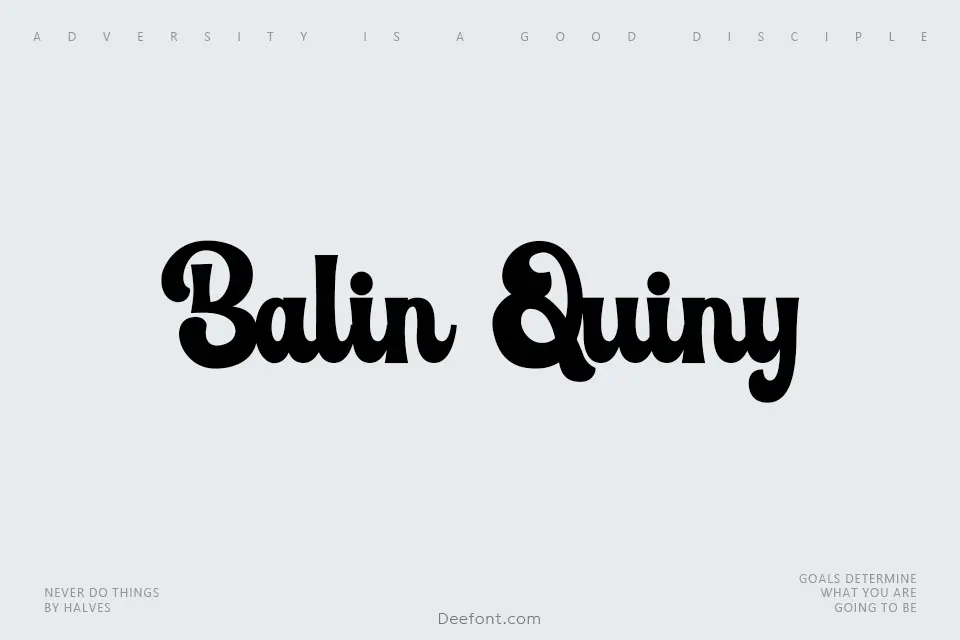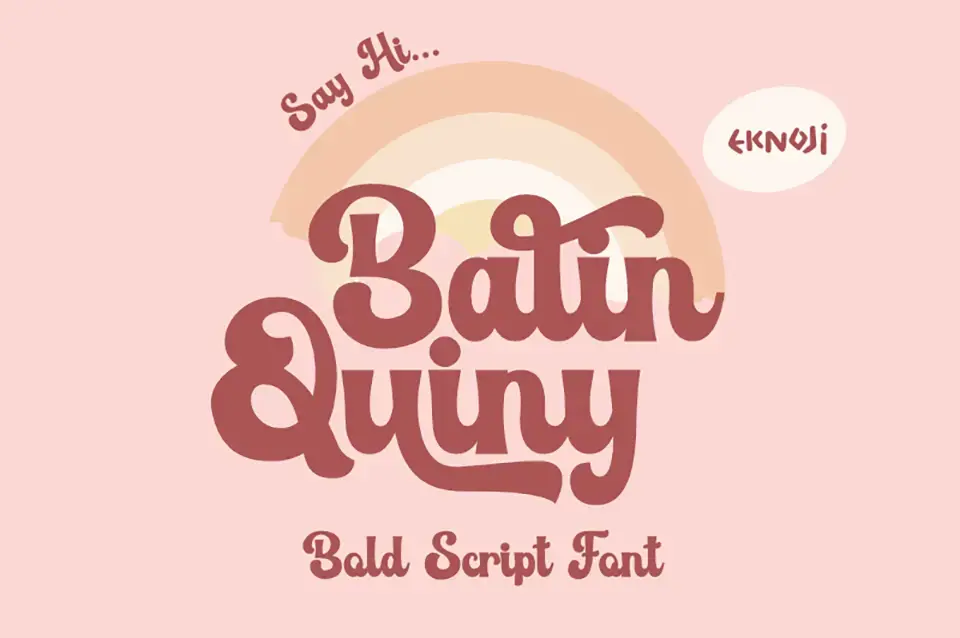
Balin Quiny Font
Balin Quiny is an elegant and striking script calligraphy typeface designed to infuse vintage charm into headlines and logotype projects with its bold, confident brush-stroke aesthetics. This typeface reads as strong and dynamic, featuring smooth, flowing letterforms with nostalgic flair ideal for display-focused designs. PUA-encoded with comprehensive glyphs and ligatures, Balin Quiny suits posters, branding, packaging, invitations, and decorative titles requiring retro character without sacrificing visual impact and readability across print and digital media.